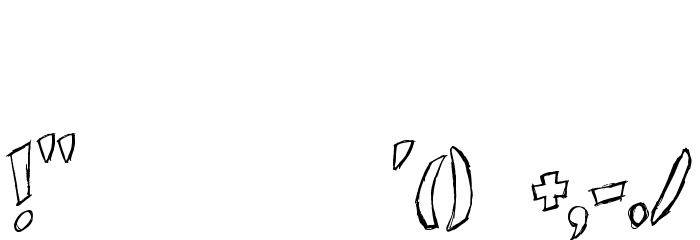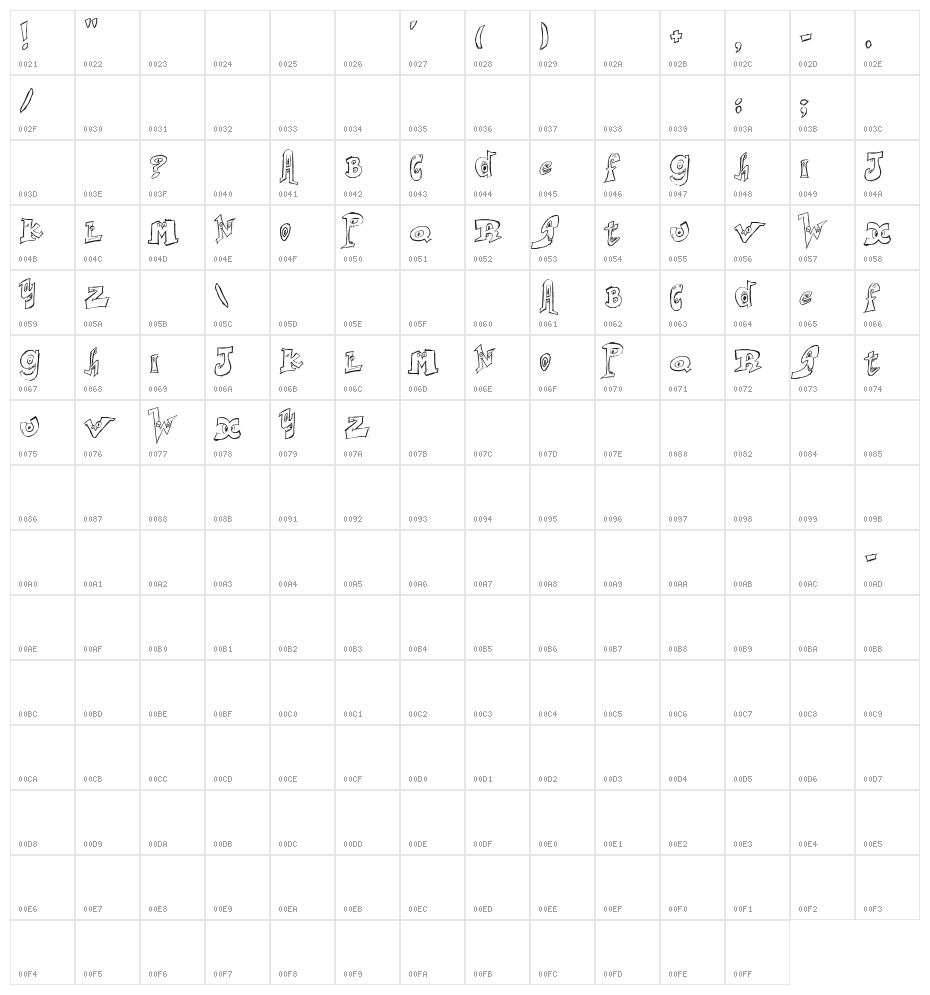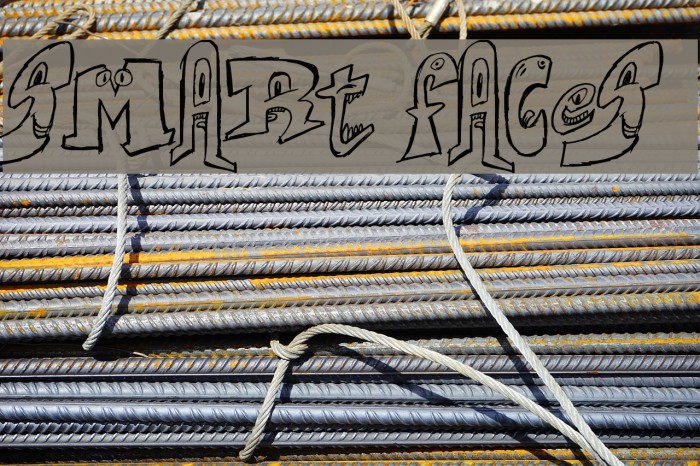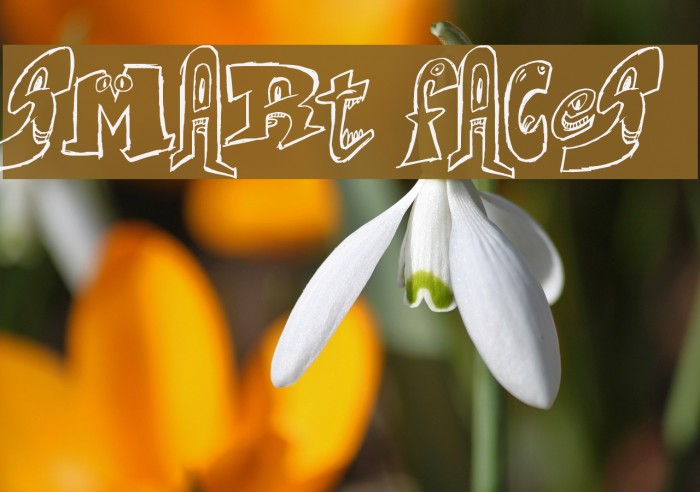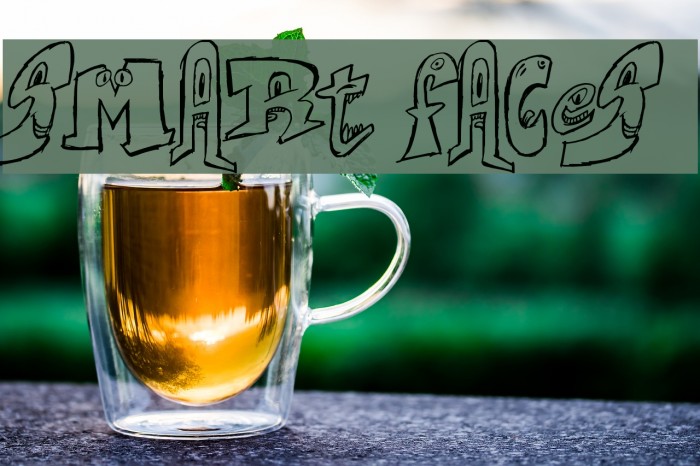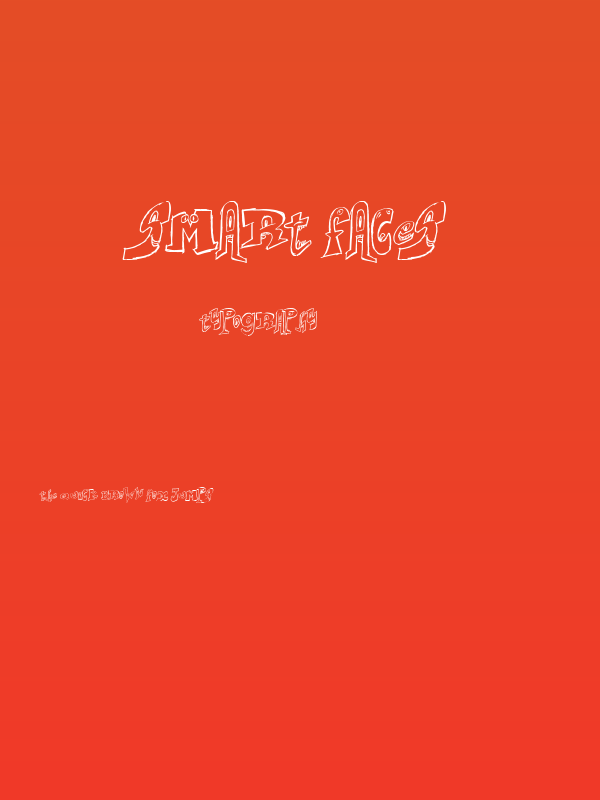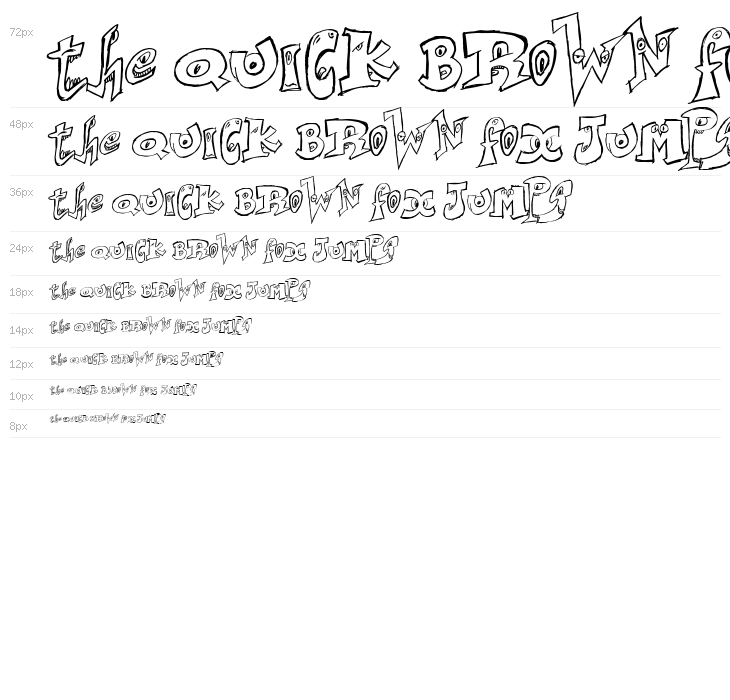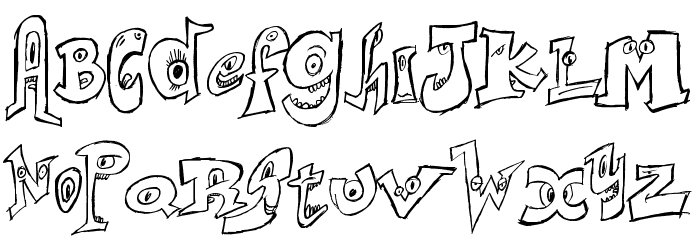
Smart Faces Font
Smart Faces Description
This playful and whimsical font features a unique, hand-drawn style with exaggerated, cartoon-like characteristics. Each letter is adorned with quirky details, such as eyes and mouths, giving the font a lively and animated appearance. The strokes are uneven and bold, adding to the font's dynamic and energetic feel. The uppercase and lowercase letters maintain a consistent style, while the numbers and special characters follow the same playful theme. This font is perfect for projects that require a fun and engaging visual element.
| Overall Style | Whimsical, Playful |
| Proposed Projects | Ideal for children's books, comic strips, playful branding, and party invitations. |